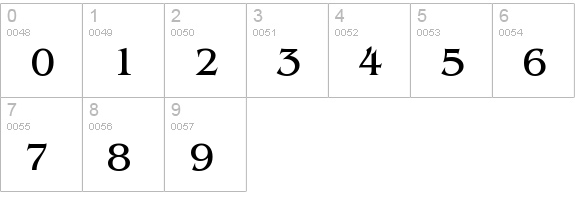
Baldessare is a stunning and elegant serif font that exudes sophistication and class. With its clean lines and timeless appeal, this typeface is perfect for a wide range of design projects, from branding to editorial work. The Baldessare font features exquisite letterforms that will add a touch of refinement to any project. The best part about Baldessare font is that it is available for free download at FontsMarket.com. This means you can easily access and use this beautiful typeface without any cost. Whether you're a professional designer looking for a high-quality font or a hobbyist wanting to add a touch of style to your creations, Baldessare is the perfect choice. Don't miss out on the opportunity to enhance your designs with the elegance of the Baldessare font. Download it for free today and elevate your projects to the next level.